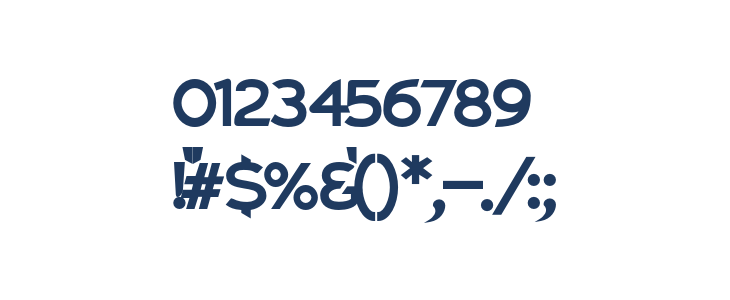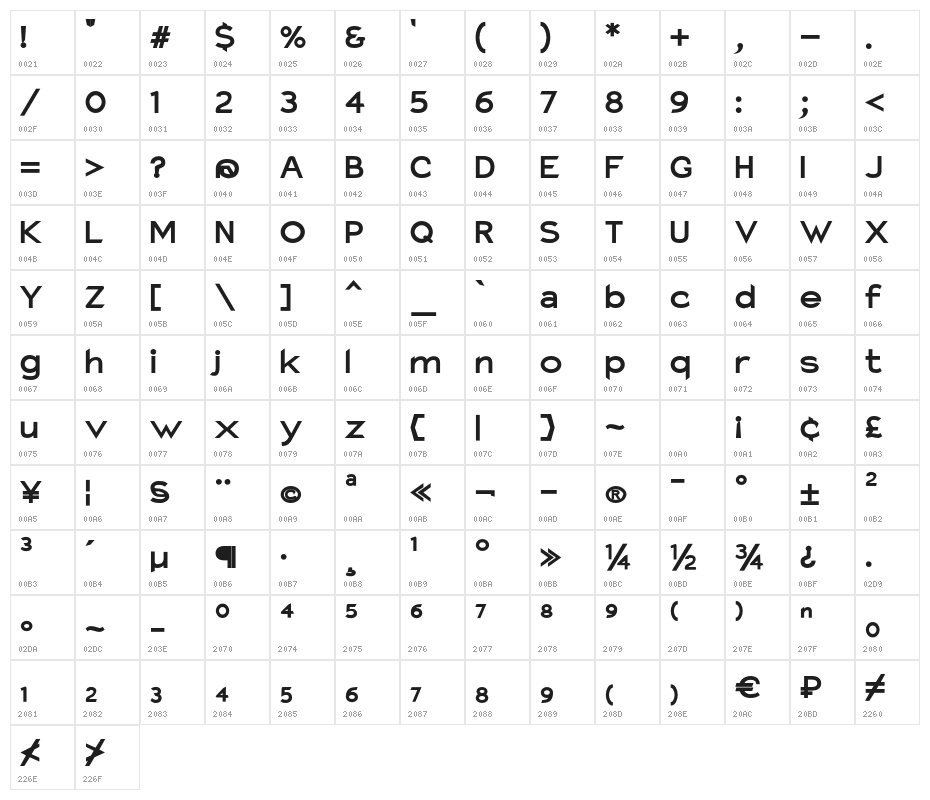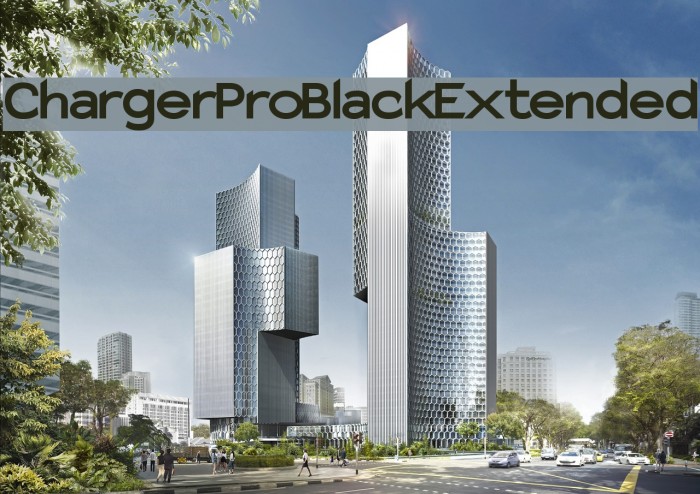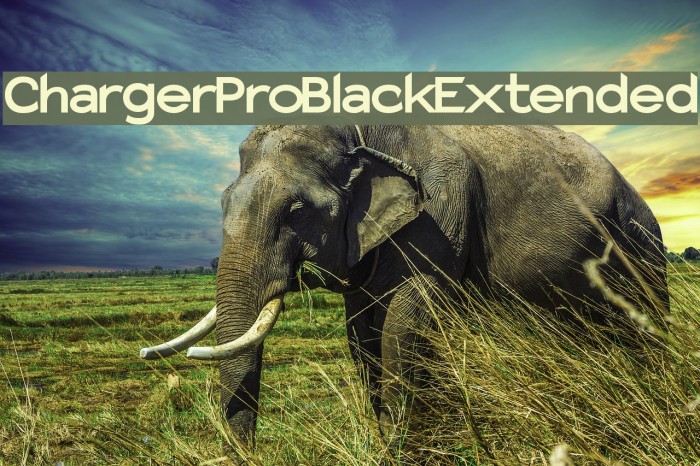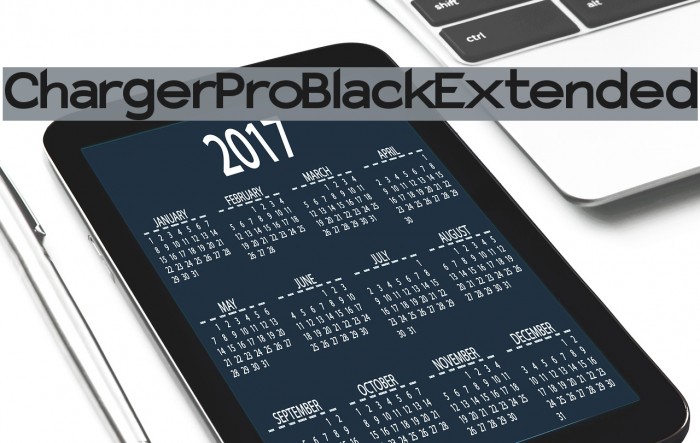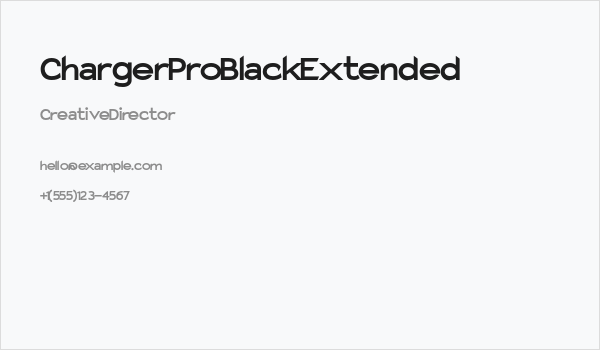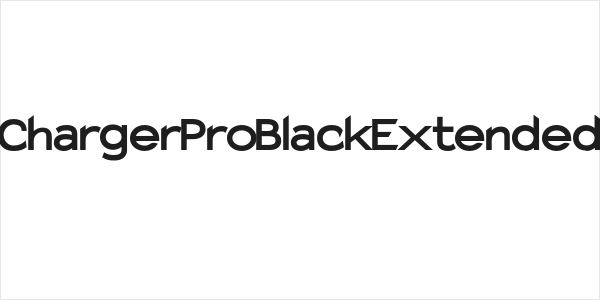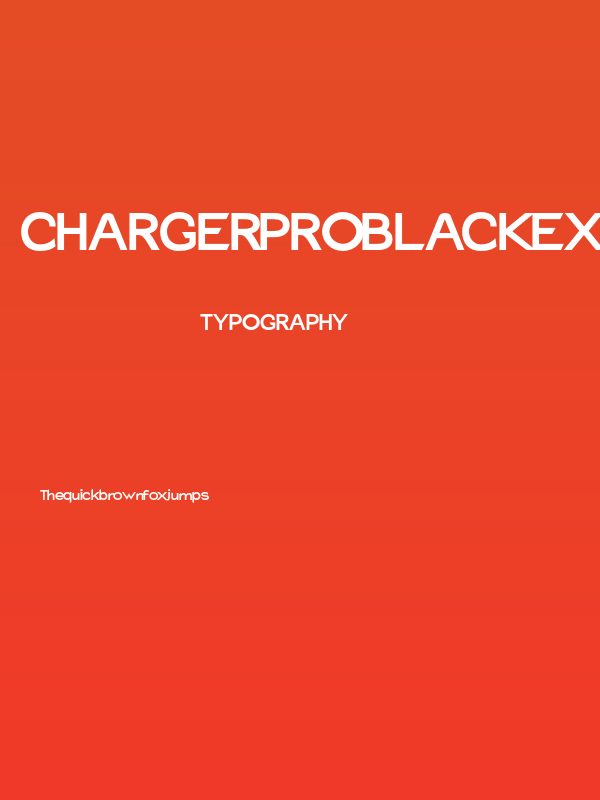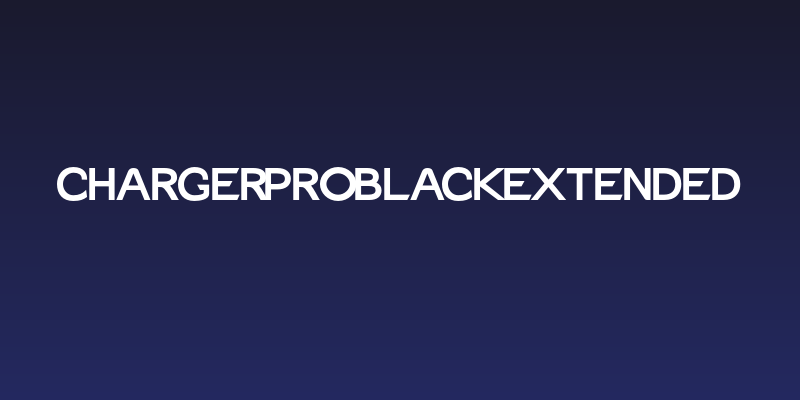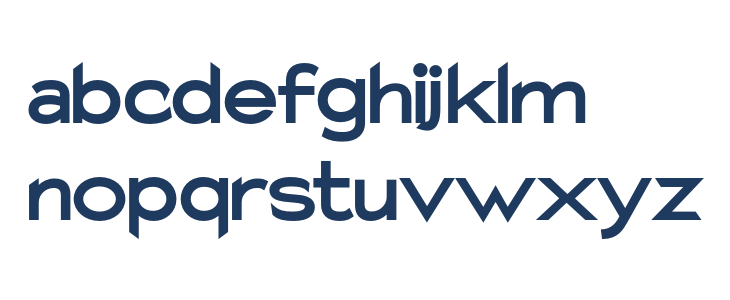
Charger Pro Black Extended Font
Charger Pro Black Extended Description
This font features a bold and modern design with a strong geometric structure. The characters are wide and extended, giving a sense of stability and confidence. The uppercase letters are particularly striking with their clean lines and uniform thickness, while the lowercase letters maintain a consistent style that complements the overall aesthetic. The numerals are clear and easy to read, making them suitable for various applications. Special characters are well-integrated, maintaining the font's cohesive look. The overall impression is one of strength and clarity, making it ideal for impactful design projects.
| Proposed Projects | Ideal for branding, headlines, posters, and any design requiring a strong, modern presence. |